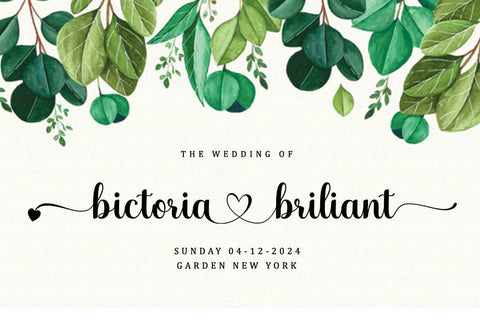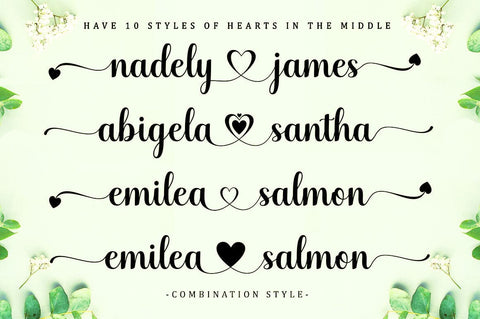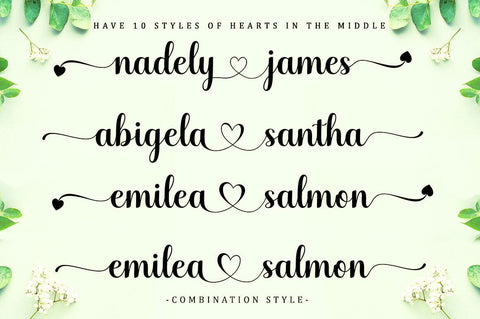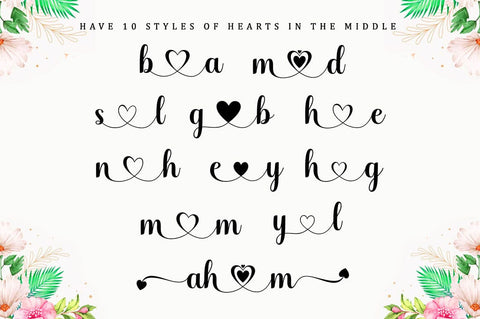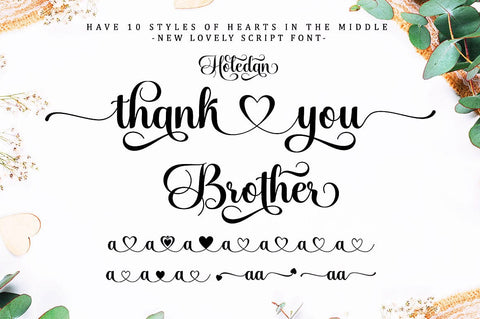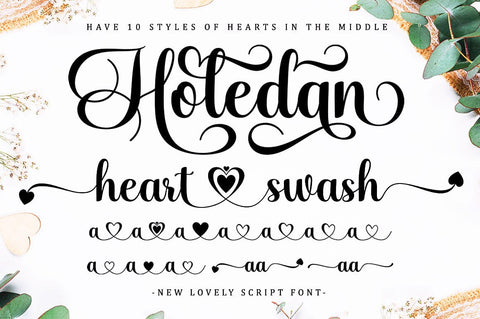
Holedan Heart Font
Holedan Heart is a very elegant, beautiful and cute script font. This love-centered look makes it perfect for use in all your best design projects. Expertly designed to be a true favorite, this font has the potential to take your creative ideas to the highest level! This font is PUA coded which means you can easily access all the glyphs and strokes!
Holedan Heart is attractive because it is sleek, clean, feminine, sensual, glamorous, simple and very easy to read, thanks to its luxurious letter connections. I also offer a number of alternative styles for all letters. The classic style is very suitable to be applied in various formal forms such as invitations, labels, restaurant menus, logos, fashion, make up, stationery, novels, magazines, books, greeting/wedding cards, packaging, labels or all kinds of advertisements. for your purposes. . . . . . .
Features: Lowercase letters start and end swashes
10 Styles of Connecting hearts
20 kinds of styles
Contains complete set:
-Uppercase -Lowercase -Alternatives -Punctuation -Numbers -Multilingual support.